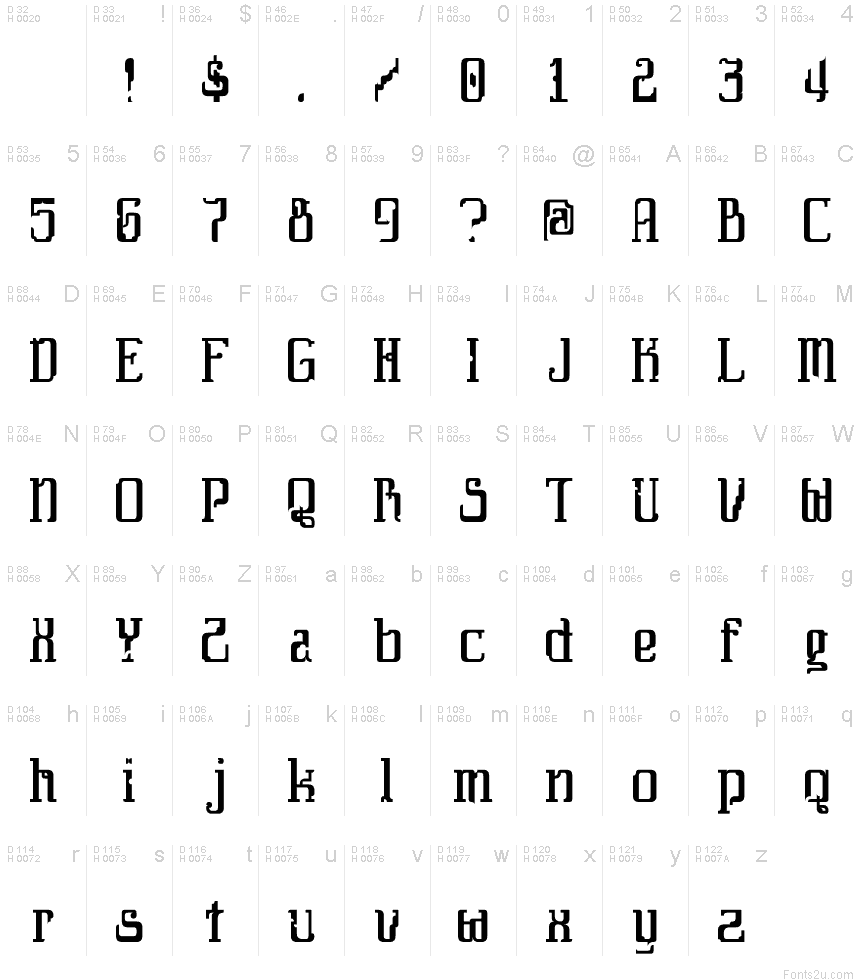
Daybreaker
Daybreaker font by Darren Rigby of Starving-4 Entertainment is a free retro headline typeface with a wiry, upright stance and chunky little slab endings that feel both mechanical and hand-cut. Its tight rhythm, squared curves, and clipped, bracket-like shapes give text a gritty, early-20th-century vibe-somewhere between vintage storefront signage and old newspaper nameplates. The letters lock together in a dense, inky texture that grabs attention without feeling loud or cartoonish.
Using Daybreaker, this free font comes into its own on posters, book covers, game titles, music flyers, beer or coffee packaging, and retro-flavored logos. It shines when set large, letting those tall strokes and blocky feet create a strong vertical pattern; pair it with a simple geometric sans in smaller sizes to keep layouts readable while letting Daybreaker carry the character and mood.